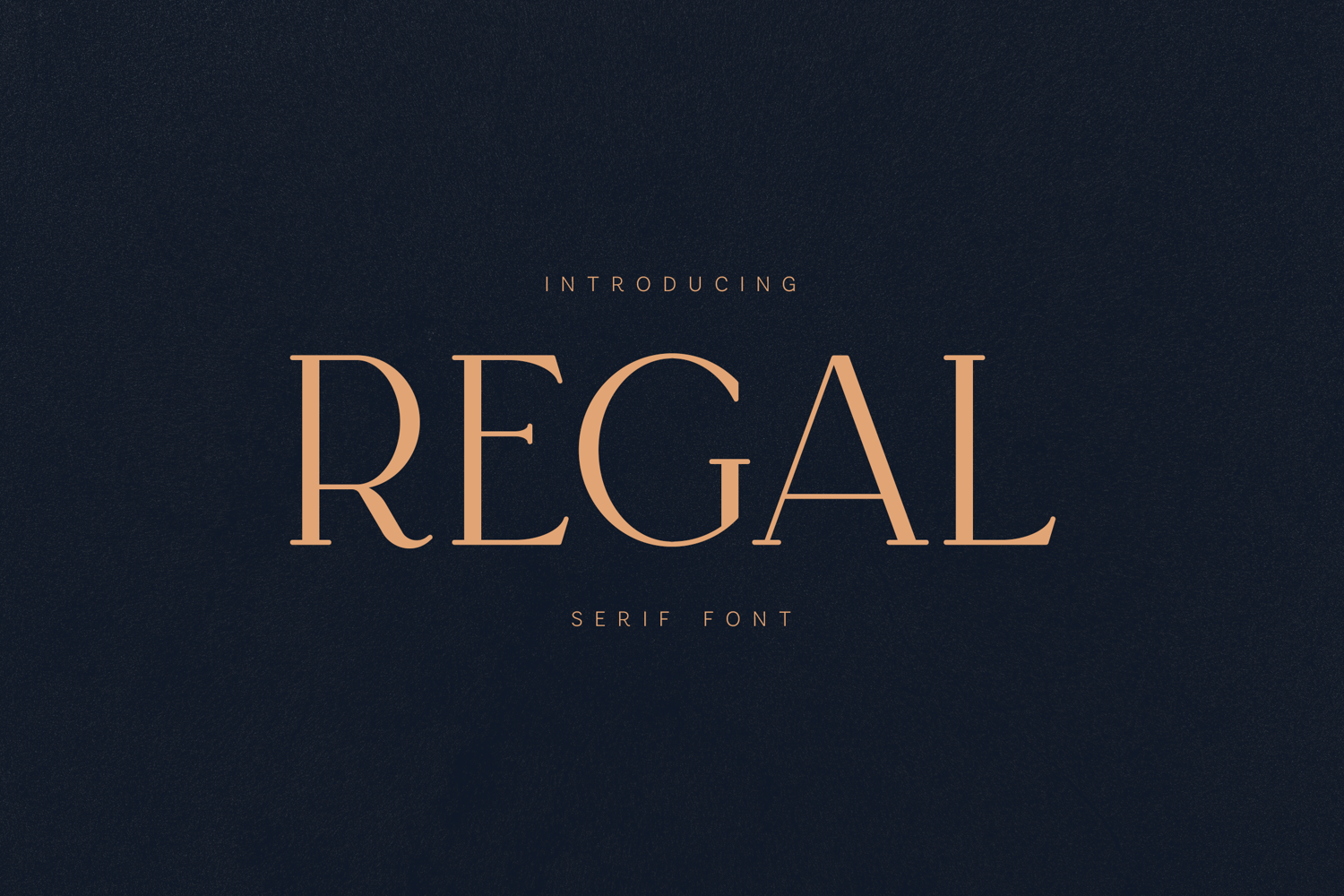
Regal Serif Elegant Modern Display Typeface
Regal is a sophisticated serif font crafted for modern luxury design. With its refined proportions, high contrast strokes, and elegant letterforms, it delivers a timeless and premium aesthetic.
Designed for high-end branding and editorial use, Regal combines classic serif structure with contemporary minimalism. Its clean geometry and subtle details make it perfect for creating impactful headlines, logos, and refined visual identities.
With extensive multilingual support and beautifully balanced characters, Regal is a versatile choice for both digital and print projects.
Perfect for• Luxury branding
• Editorial & magazines
• Logos & identities
• Packaging design
• Fashion & beauty projects
• High-end typography
Features• Uppercase & lowercase
• Numbers & punctuation
• Elegant serif design
• Clean modern structure